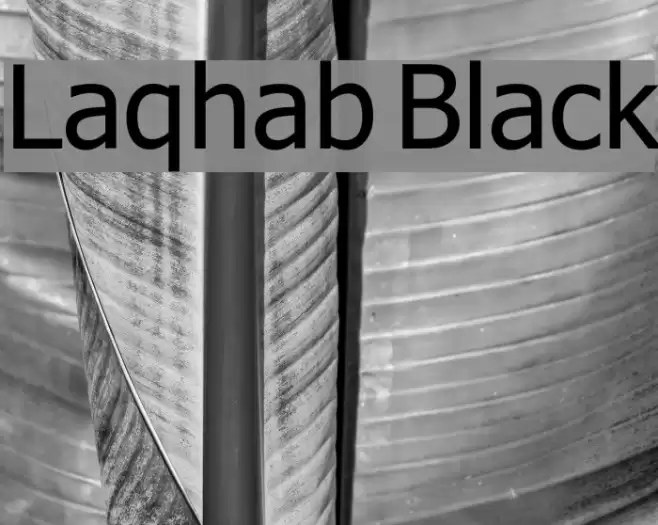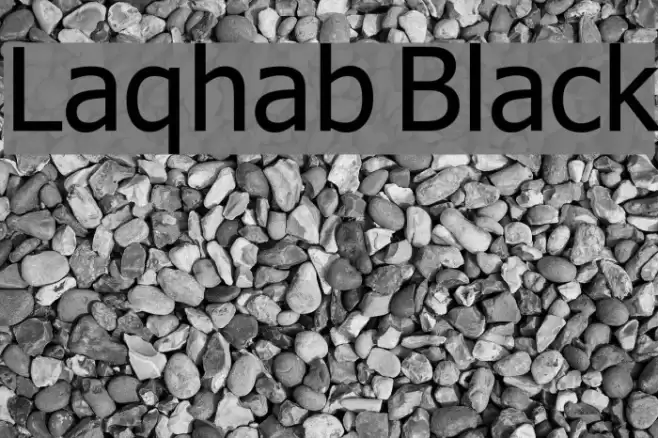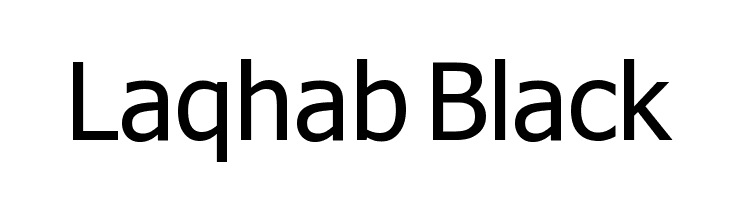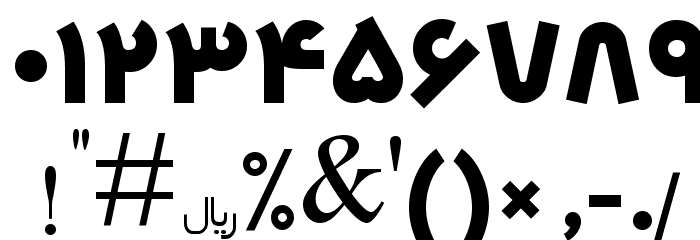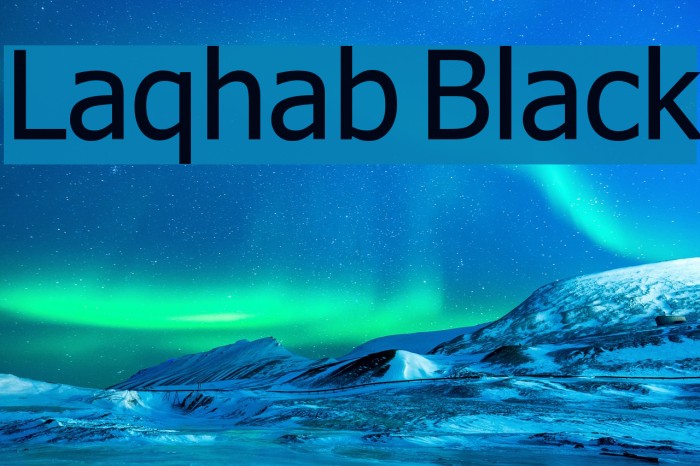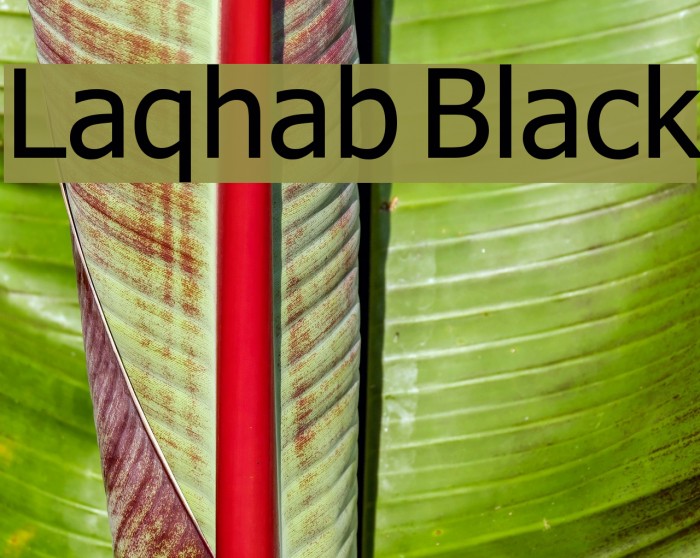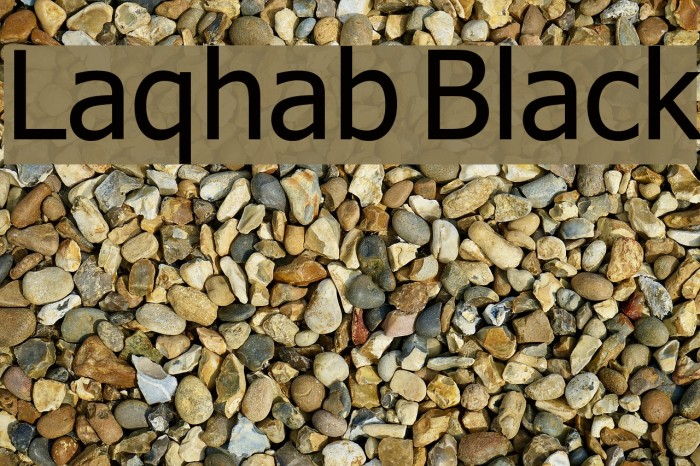
Laqhab Black Font
Laqhab Black Description
This font features a clean and modern sans-serif style, characterized by its bold and uniform stroke weight. The uppercase and lowercase letters are well-proportioned, with a consistent height and width that enhances readability. The numerals are distinct and easy to distinguish, while the special characters are designed to complement the overall aesthetic. The font's simplicity and clarity make it versatile for various design applications, ensuring it stands out in both digital and print formats.
A bold, modern sans-serif font with clean lines and uniform strokes from Uncategorized fonts.
- Proposed Projects: Ideal for branding, advertising, web design, and editorial layouts where clarity and impact are essential.
- Use Case: Headlines, Logos, Branding